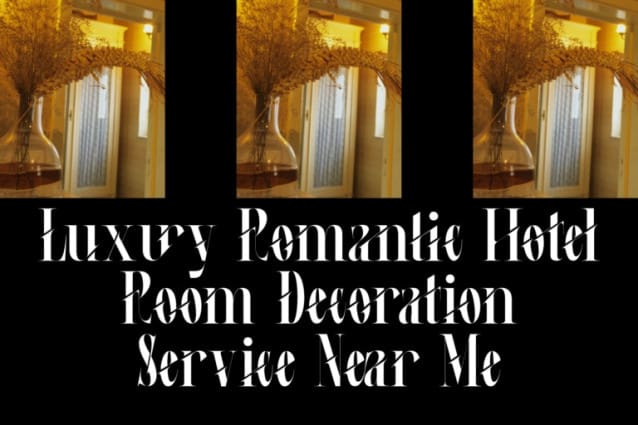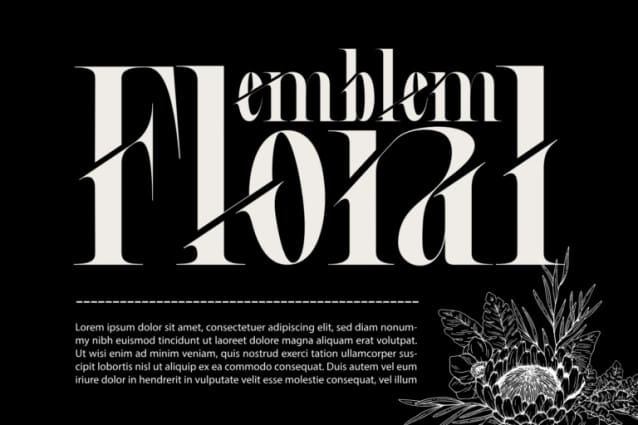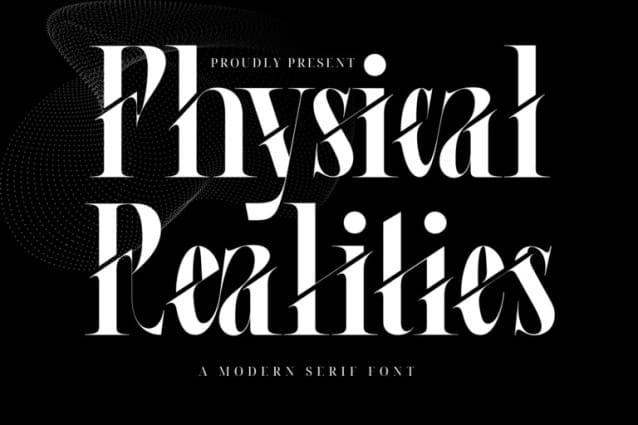
Physical Realities Font
Physical Realities Font – Stylish Display Serif Font is a modern, elegant typeface designed to bring sophistication and creativity to any project. Featuring intricate ligatures and unique, this font beautifully blends multiple letters into distinctive, seamless shapes, giving your typography a one-of-a-kind, artistic flair. This font offers beautiful typographic harmony for a diversity of design projects, including logos & branding, social media posts, advertisements & product designs.
Physical Realities was built with OpenType features and includes 100 ligatures, alternate, numbers, punctuation, and it also supports other languages.